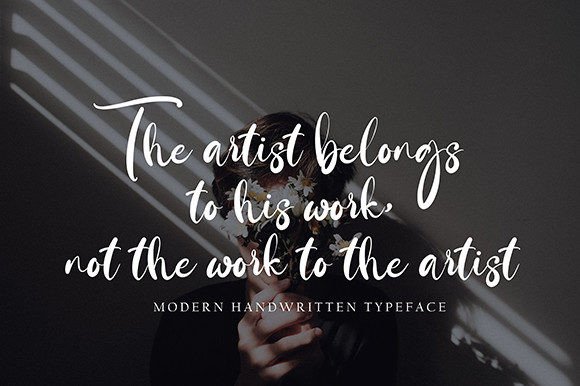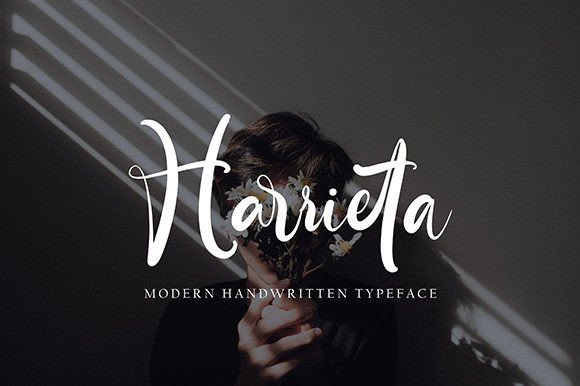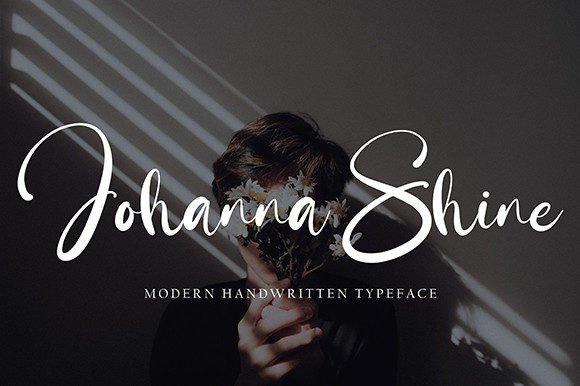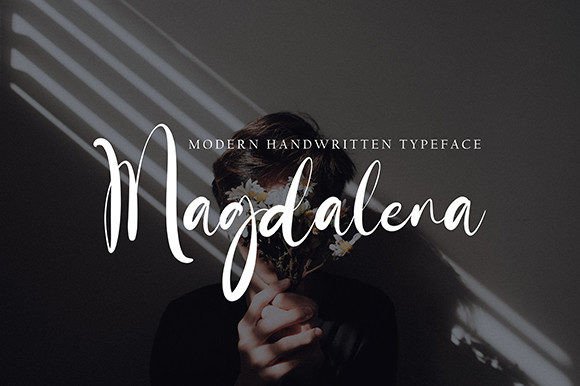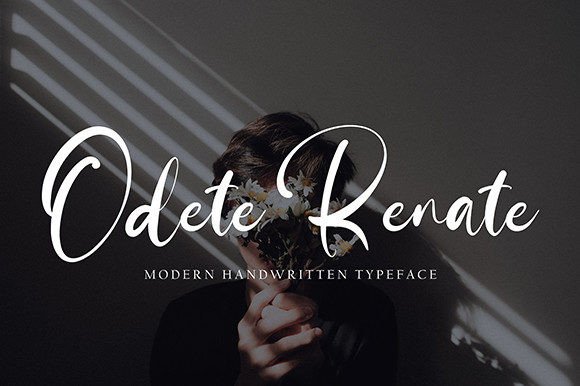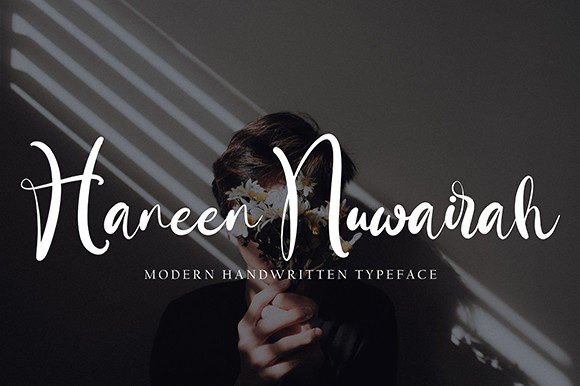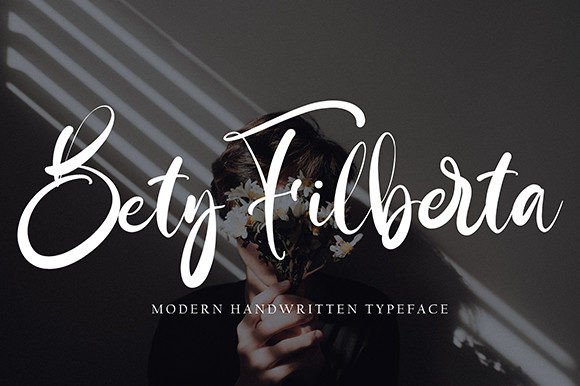
Bety Filberta Font: Elevate Your Designs with a Modern Handwritten Script
In the world of typography, a font can make or break a design. For those seeking a modern, stylish, and personalized touch, Bety Filberta font is an excellent choice. This beautiful handwritten script is perfect for designers and crafters looking to add a unique flair to their projects. With its natural and elegant appearance, Bety Filberta is ideal for a wide range of applications, from wedding invitations to business cards.
The Characteristics of Bety Filberta Font
Bety Filberta is a modern handwritten script that exudes style and sophistication. Its versatile design makes it suitable for various projects that require a personalized touch. The font’s natural and elegant appearance gives it a unique charm, setting it apart from other scripts. Whether you’re designing wedding invitations, greeting cards, or logos, Bety Filberta is sure to impress.
Bety Filberta font is perfect for creative projects that require a customized touch. Its stylish and modern design makes it an excellent choice for:
- Wedding Invitations: Add a touch of elegance and romance to your wedding invitations with Bety Filberta font.
- Thank You Cards: Express your gratitude with beautifully designed thank you cards featuring Bety Filberta script.
- Quotes: Make your quotes stand out with the elegant and stylish Bety Filberta font.
- Greeting Cards: Create personalized greeting cards for special occasions, such as birthdays, anniversaries, and holidays.
- Logos: Use Bety Filberta font to create a unique and memorable logo for your brand.
- Business Cards: Add a touch of professionalism and style to your business cards with Bety Filberta script.
Why Choose Bety Filberta Font?
There are several reasons why Bety Filberta font stands out from other handwritten scripts:
- Unique and Stylish: Bety Filberta font has a distinct and stylish appearance that sets it apart from other fonts.
- Versatile: The font’s versatility makes it suitable for a wide range of projects, from wedding invitations to business cards.
- Elegant: Bety Filberta script has an elegant and sophisticated appearance, making it perfect for projects that require a touch of luxury.
- Easy to Read: Despite its stylish and cursive design, Bety Filberta font is easy to read, making it perfect for body text and captions.
Tips for Using Bety Filberta Font
To get the most out of Bety Filberta font, here are some tips to keep in mind:
- Use it Sparingly: While Bety Filberta font is beautiful, it’s best to use it sparingly to avoid overwhelming the reader.
- Pair it with Other Fonts: Experiment with pairing Bety Filberta font with other fonts to create a unique and visually appealing design.
- Adjust the Size: Adjust the font size to create visual hierarchy and emphasize important information.
- Experiment with Colors: Try out different colors to find the perfect match for your design and brand.
Bety Filberta font is a modern handwritten script that can elevate your designs and add a touch of elegance and sophistication. Its versatility, stylish appearance, and ease of use make it perfect for a wide range of projects. Whether you’re a designer or crafter, Bety Filberta font is an excellent choice for adding a personalized touch to your work. So why not give it a try and see how it can transform your designs?
In conclusion, Bety Filberta font is a beautiful and stylish handwritten script that can add a unique flair to your designs. Its natural and elegant appearance makes it perfect for wedding invitations, thank you cards, quotes, greeting cards, logos, business cards, and every other design that requires a customized touch. With its versatility and ease of use, Bety Filberta font is sure to become a favorite among designers and crafters.